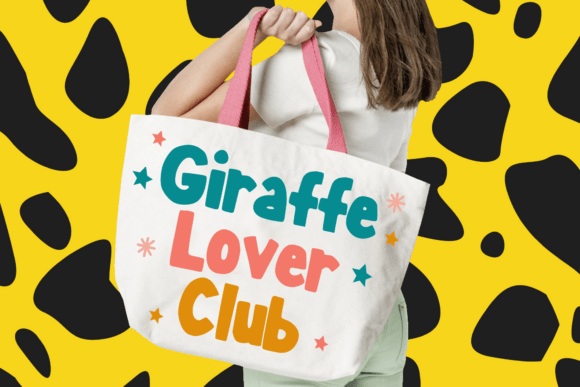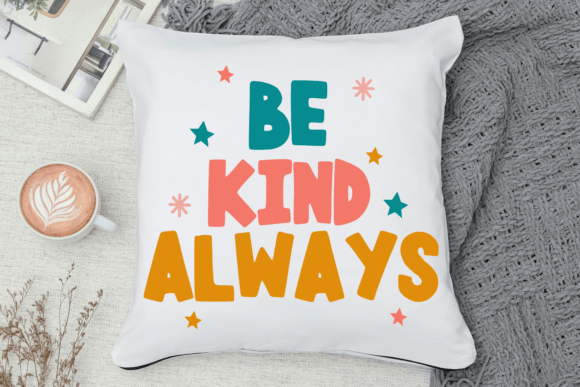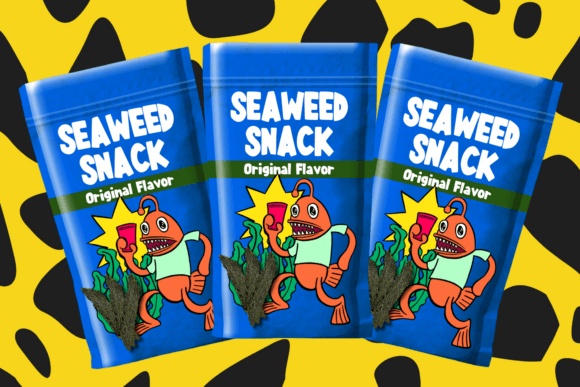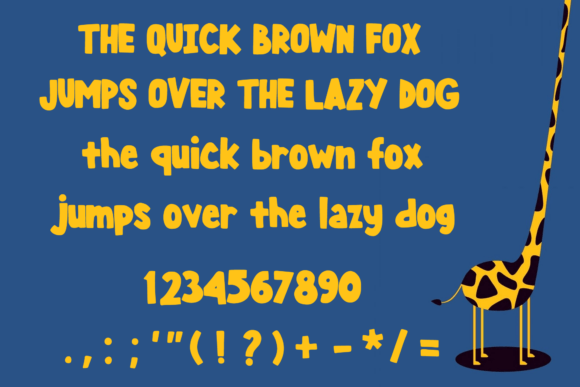
Introduction to Giraffe Comic Font
Do you ever find yourself stuck in front of your design software, desperately searching for the perfect font to elevate your creative project? The struggle is real, especially when you’re working on a design that requires a playful and bold touch. That’s where the Giraffe Comic Font comes in – a game-changing design resource that’s sure to take your designs to the next level.
With its cute and whimsical style, the Giraffe Comic Font is perfect for a wide range of design ideas, from stickers and t-shirt designs to logo designs, magazine covers, and comics. Whether you’re a seasoned designer or just starting out, this high-quality font is an absolute must-have in your design arsenal.
Key Features of Giraffe Comic Font
- High-quality, hand-drawn design ideal for creative projects and design resources.
- Available for free download with transparent background, allowing for seamless integration into various design elements.
- Comes in a single weight, providing a clean and consistent aesthetic for your design projects.
- Features a unique, comic-inspired style with bold lines and playful characters, perfect for adding a touch of whimsy to your designs.
- Designed with a high resolution of 300 DPI, ensuring crisp and clear typography in both digital and print applications.
Honest Review: Giraffe Comic Font
I recently had the chance to work with the Giraffe Comic Font in a creative project, and I must say it’s been a game-changer. This free download has been a valuable addition to my design resource library.
One of the standout features of the Giraffe Comic Font is its high quality. The lines are crisp, the characters are well-designed, and the overall aesthetic is clean and modern. ✨ I particularly appreciate the transparent background option, which gives me the flexibility to use this font in a variety of contexts.
- The Giraffe Comic Font is incredibly versatile and can be used in a range of creative applications, from digital comics to children’s book illustrations.
- The font is highly customizable, allowing me to adjust the size, color, and style to suit my specific needs.
- The transparent background option makes it easy to combine this font with other design elements.
Of course, no font is perfect, and I do have a few minor complaints. ⚠️ For one, the font could benefit from a few more weight options (e.g. light, bold, etc.). Additionally, some of the characters may not render properly in certain situations.
Overall, I’m thoroughly impressed with the Giraffe Comic Font. It’s a high-quality, free resource that’s been a valuable addition to my design library. I highly recommend it to anyone working on a creative project that requires a fun, modern font with a lot of character.
Use the Giraffe Comic Font to add a fun and playful touch to your creative projects. Pair it with other high-quality design resources, such as transparent background images, to create a unique and eye-catching design. Experiment with different font sizes and styles to find the perfect combination for your project.
The Giraffe Comic Font is perfect for a variety of creative projects, including children’s books, comic strips, and graphic novels. It’s also great for adding a touch of whimsy to presentations, documents, and social media graphics. With its free download and transparent background, you can use it to create high-quality designs without any hassle.